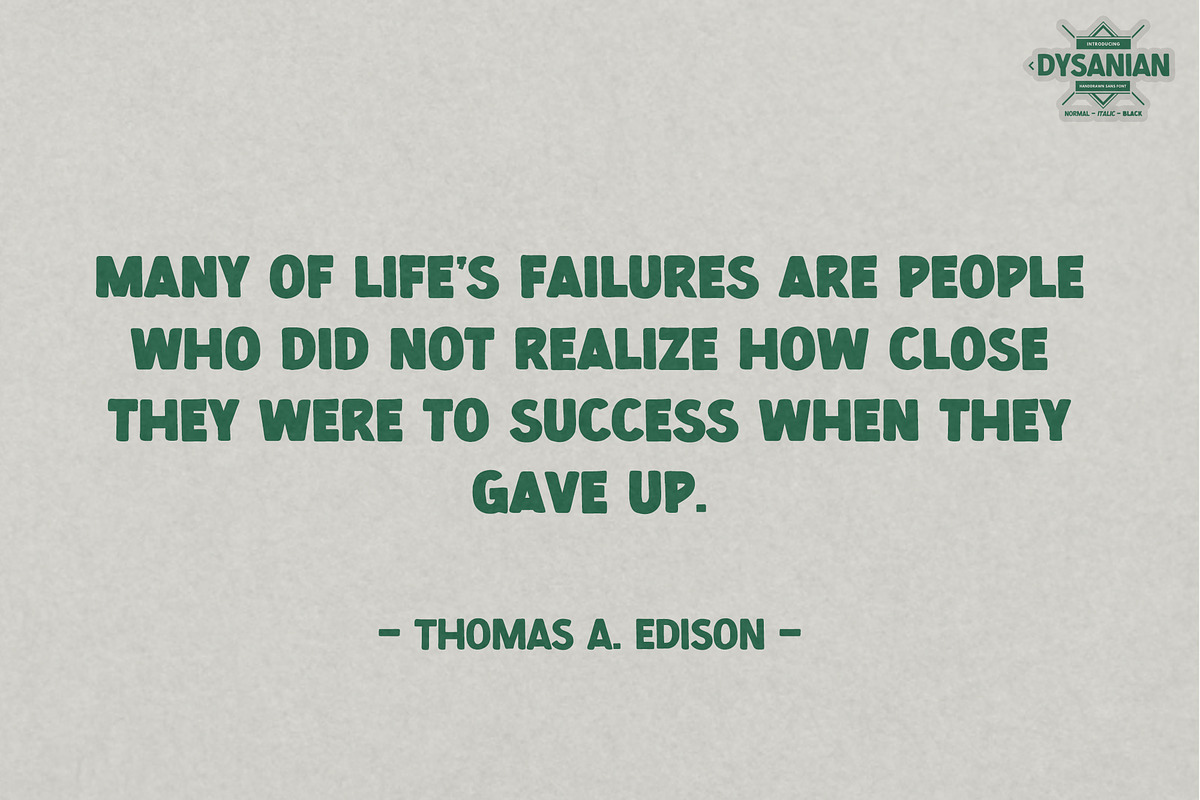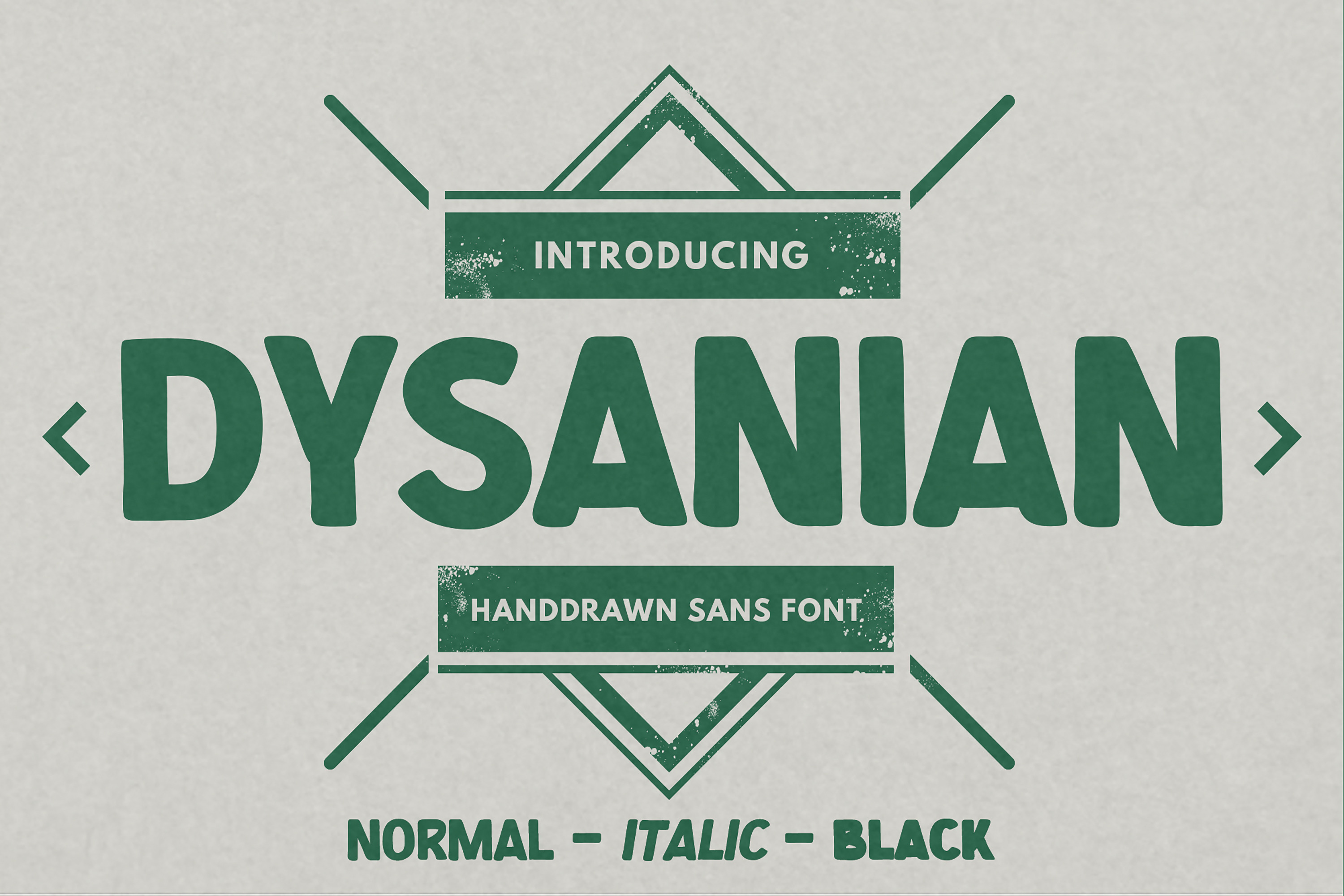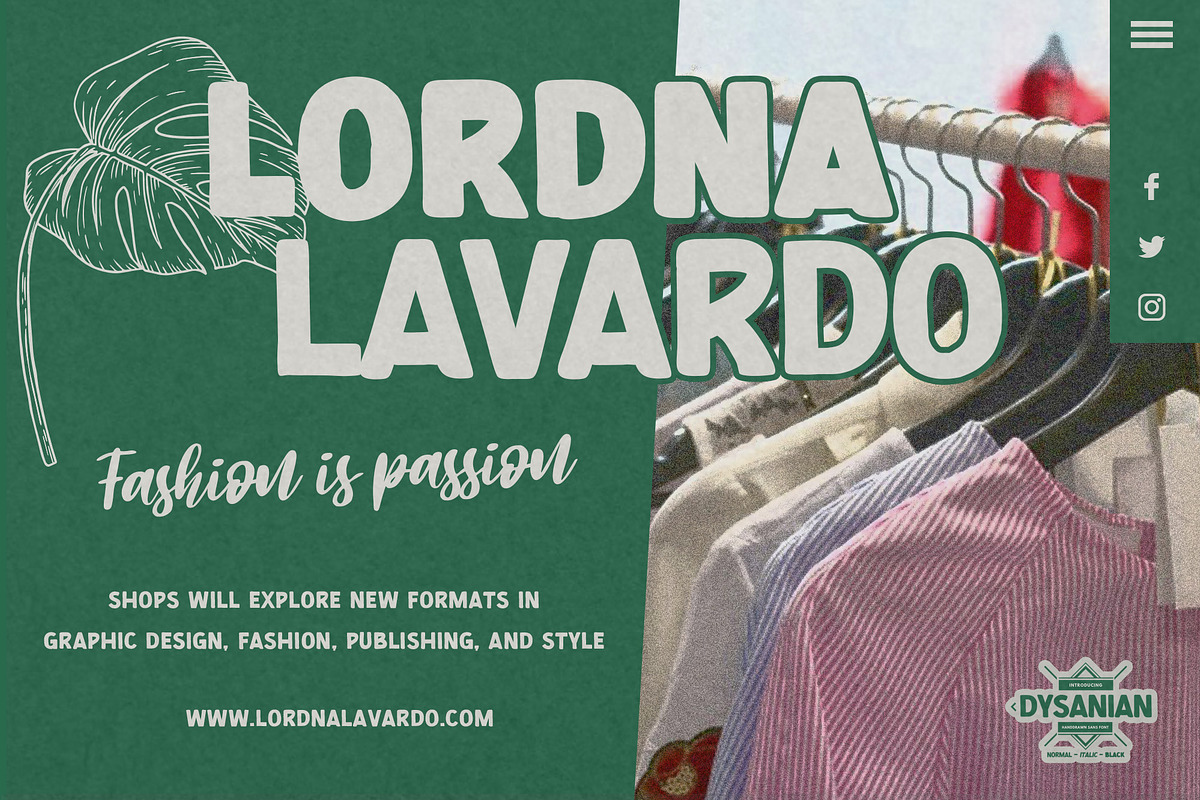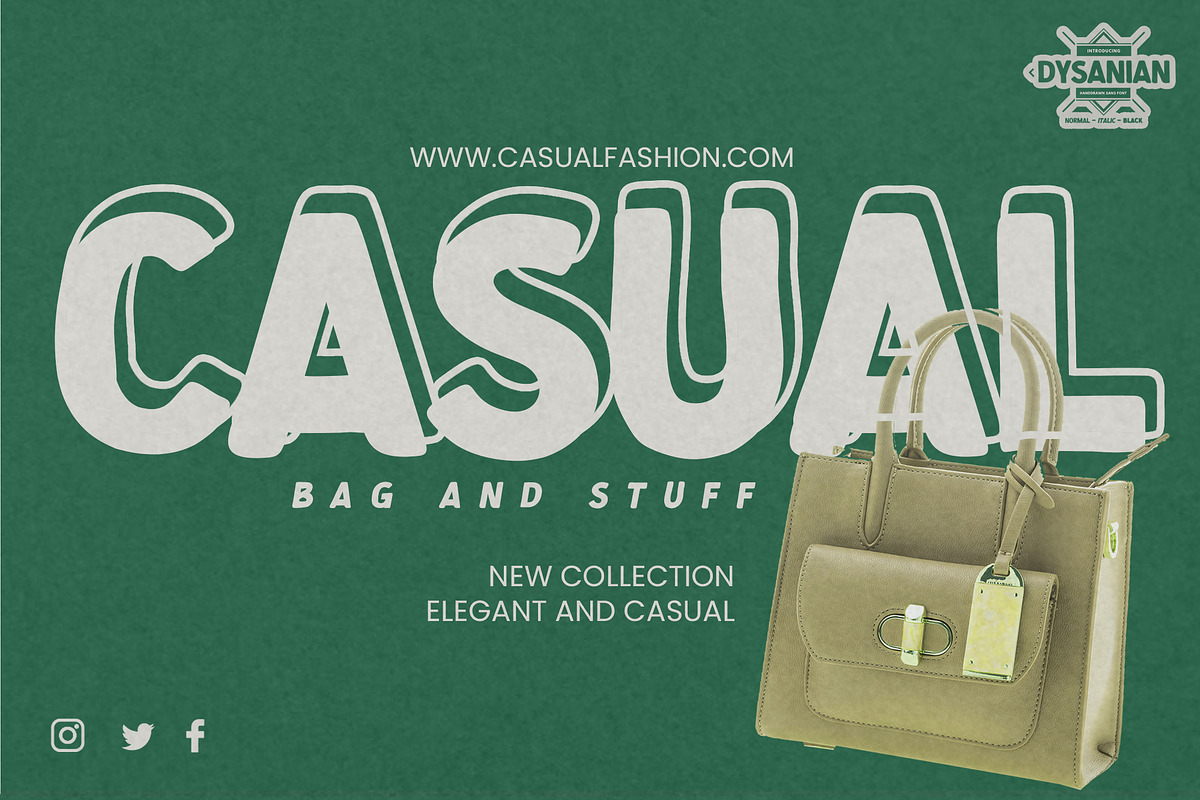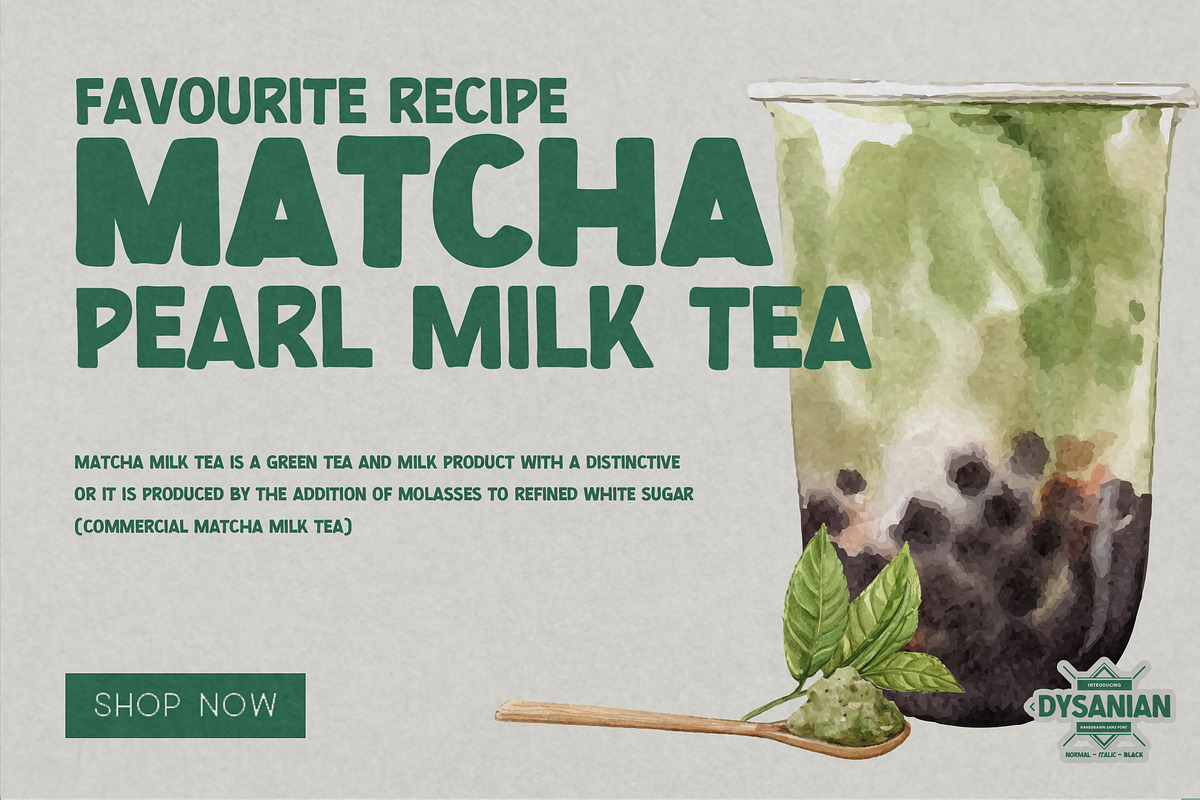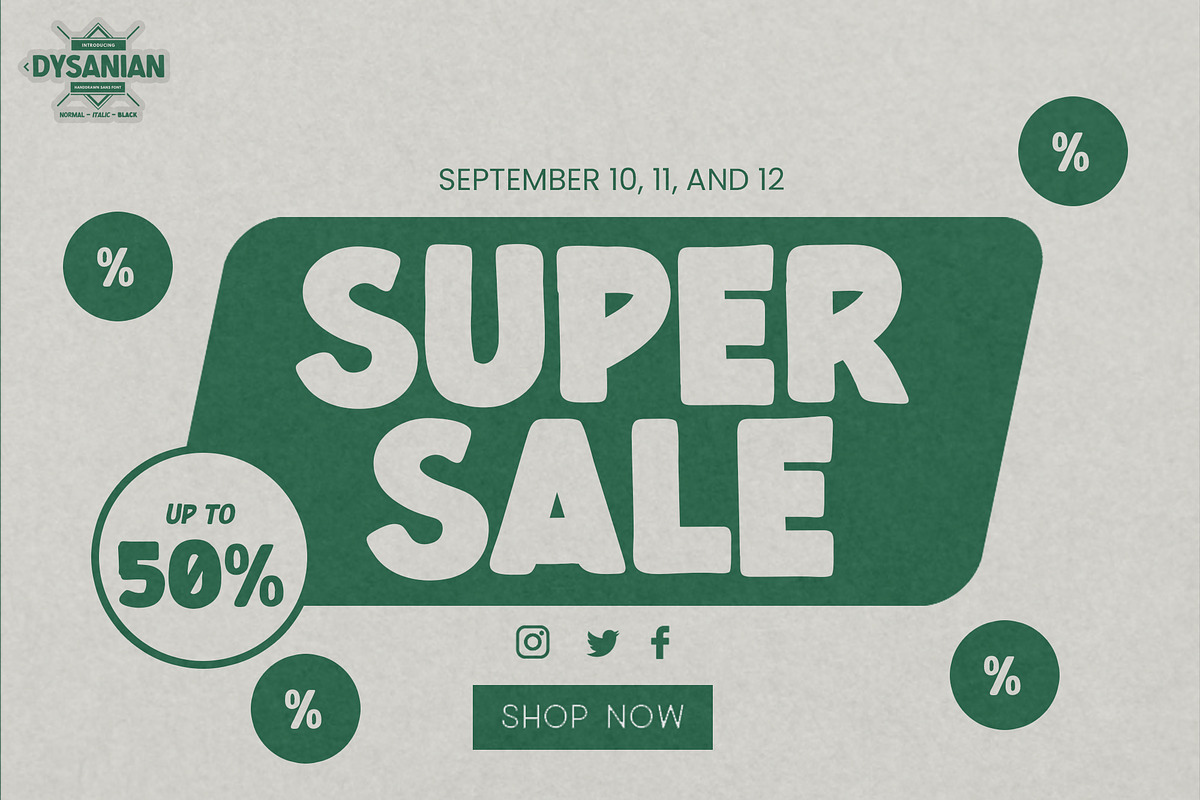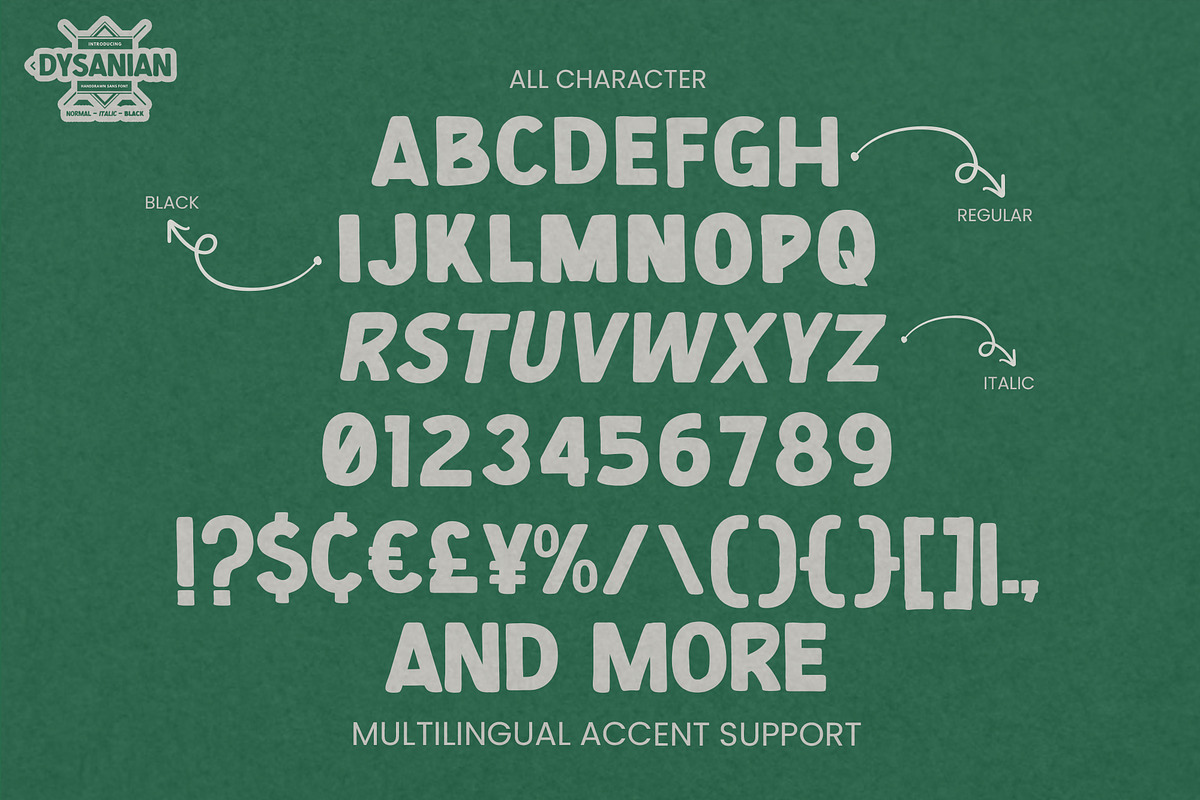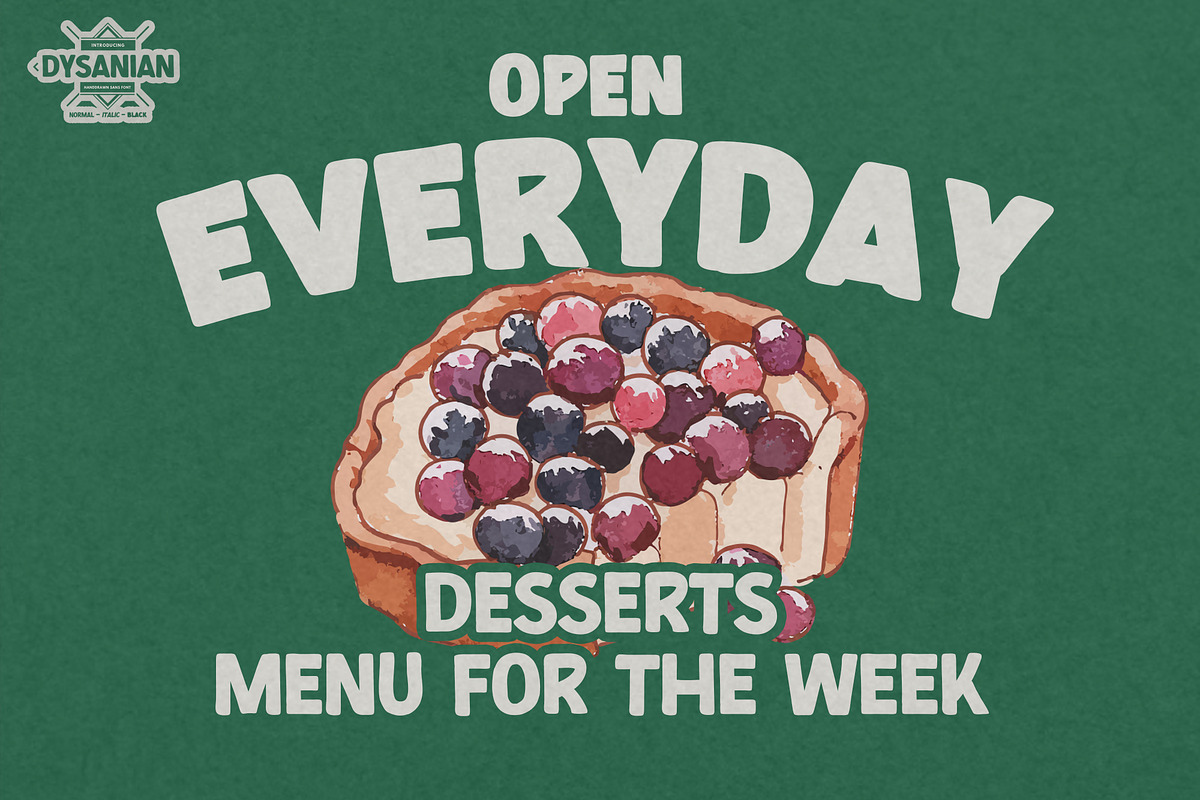
Dysanian - Hand Drawn Sans Font
Dysanian is Hand Drawn Sans Font with a natural style and dramatic movement.is a Authentic Font that is written casually and quickly. Every glyphs are made with Procreate. Then trace down into a vector format, and carefully crafted into a typeface. That is why Dysanian has stylish, authentic and strong characteristic more natural look. Dysanian is has 4 style Normal,Italic,Black and Black Italic styles is perfect for the purposes of designing templates, brochures, videos, advertising branding, logos and more.
Dysanian Perfect for designs,branding projects, Logo design, Quotes product packaging and another Project thet require cool strong brush font. Crafted manually with love and passion, This font is great for your next creative project such as logos, printed quotes, invitations, cards, product packaging, headers, Logotype, Letterhead, Poster, Label, and etc.